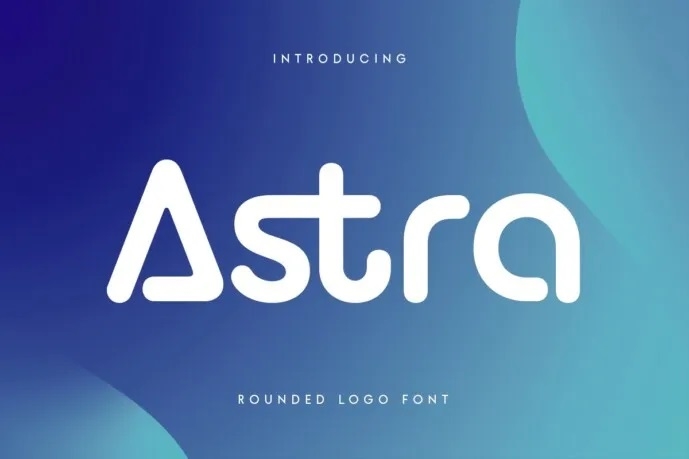
Astra Font
Astra Font is a modern rounded logo font that will fit any brand well and give the identity a playful yet professional look. Its soft rounded shapes make it look friendly and easy going, suitable for logos, product packaging, design and many other collaborative designs.
This is because when you feature Astra on your site it will effectively be noticeable by giving it a sleek appearance that does not detract or interfere with the minimalist sleekness of your brand identity. Designed to have smooth borders, applying the Astra theme makes your project look new and contemporary.
Despite its imperfections, this font is universal and can be used in various technologies start-ups, lifestyle brands, and personal ventures all with that same level of cuteness and readability. Astra has the options of characters and is fully multilingual which grants the designers freedom to capture the brand’s nature in logos and other visual content. By virtue of its style, simplicity and versatility it has become among the top font to be used for modern branding.
Astra Logo Font